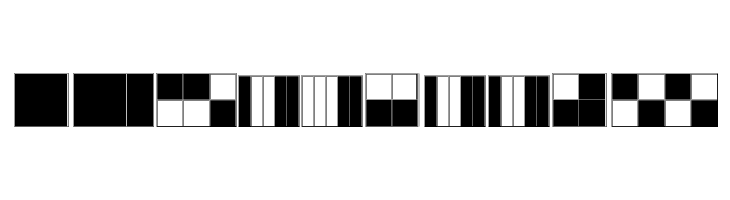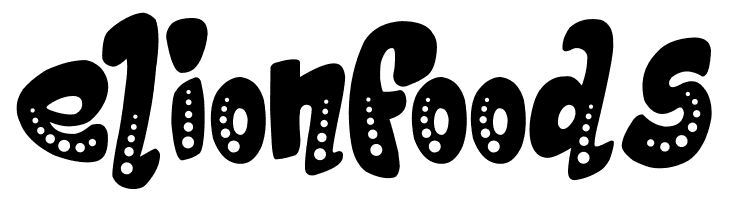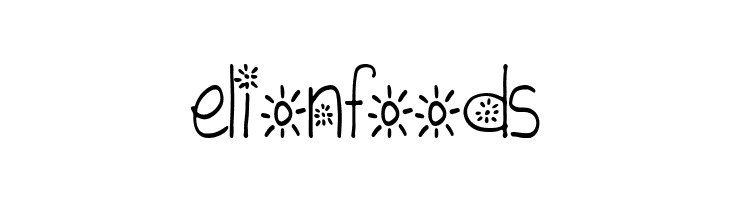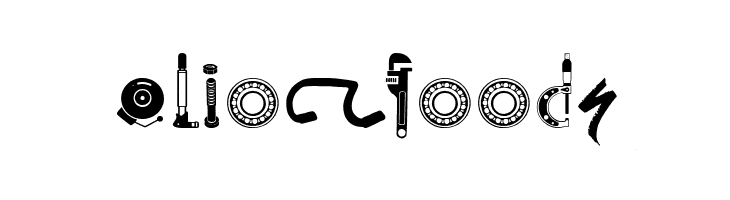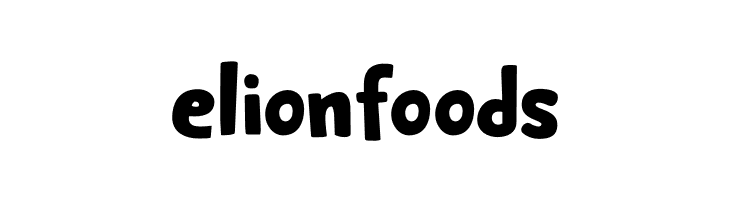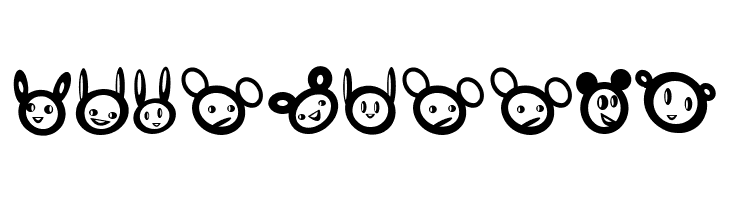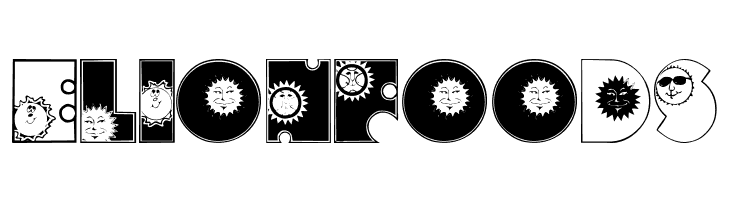
Geometric pictogram font illustrating fractions with filled and outlined segments.
A playful, dotted font with bold, rounded characters ideal for fun designs.
A playful, decorative font with sunburst patterns in each character.
A decorative font inspired by bicycle and mechanical parts, ideal for thematic displays.
A bold and playful set of erotic symbols with a modern aesthetic.
A playful, bold font with rounded characters and whimsical bunny-themed glyphs.
A bold, three-dimensional font with a metallic, futuristic appearance.
A playful font featuring cartoon-like animal faces with unique expressions.